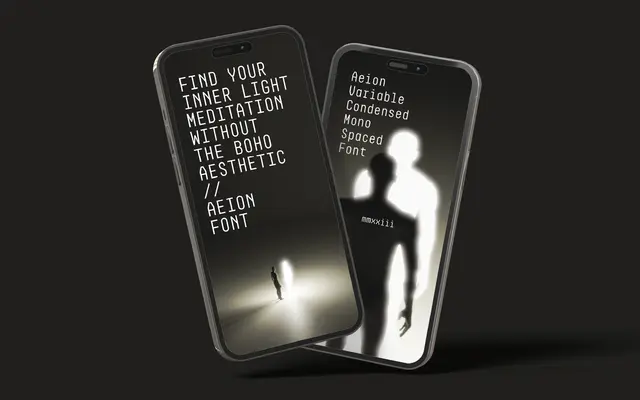
Aeion Mono Variable
A variable-weight monospaced family spanning seven weights from Extra Light to Extra Bold, aimed at technical and screen-based contexts.
Running from Extra Light to Extra Bold on a continuous variable weight axis, the family covers basic Latin, Latin Extended-A and a broad set of mathematical and currency symbols. OpenType features include fractions, superscripts, subscripts, scientific inferiors and two stylistic sets offering alternate numeral and letter forms. The glyph set suits code editors, data-dense interfaces and tabular display work where consistent spacing is essential.
A fixed-width typeface with a technical, geometric character, designed for code, data and screen use across a variable weight axis from Extra Light to Extra Bold.